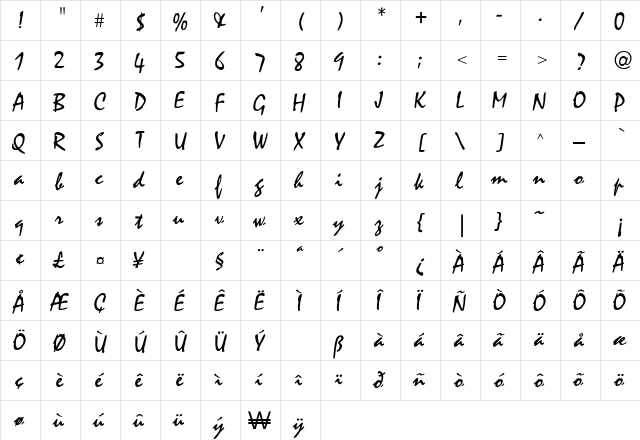
Magistra Regular
Design Context for Magistra Typeface
Magistra is a composed and adaptable typeface that performs quietly and consistently across a wide range of design contexts.